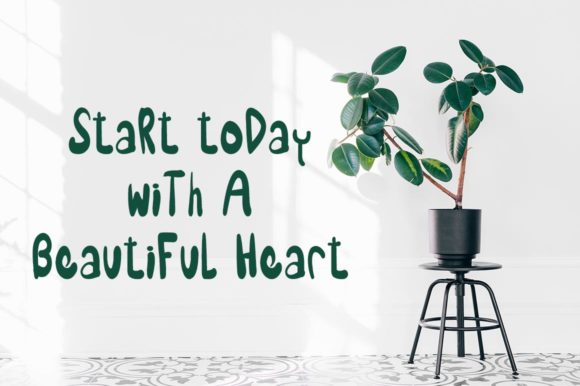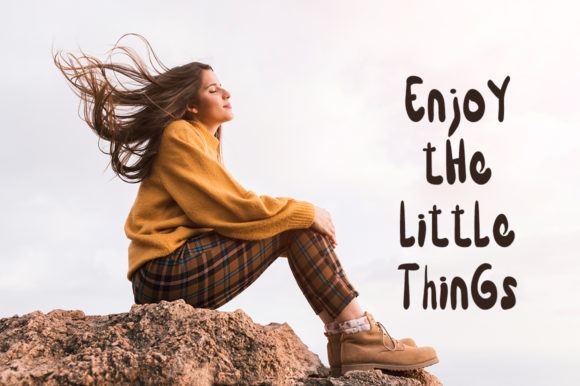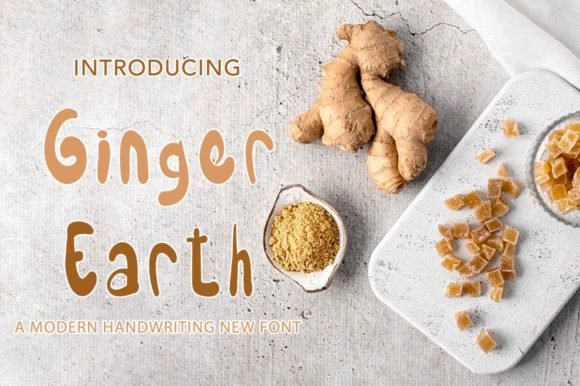
Introduction to Ginger Earth Font
Ginger Earth is a cute and casual display font.
Ginger Earth will look outstanding in any context, whether you’re looking for fonts for Instagram or calligraphy scripts for DIY projects, Ginger Earth will turn any creative idea into a true piece of art .
Key Features of Ginger Earth Font
Why Choose Ginger Earth Font?
Ginger Earth Font offers exceptional quality and versatility, making it a valuable addition to your design toolkit. Whether you’re creating for personal projects or commercial use, Ginger Earth Font delivers professional results.